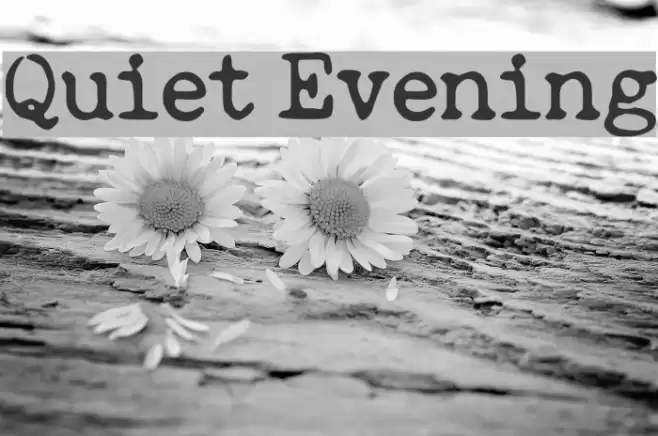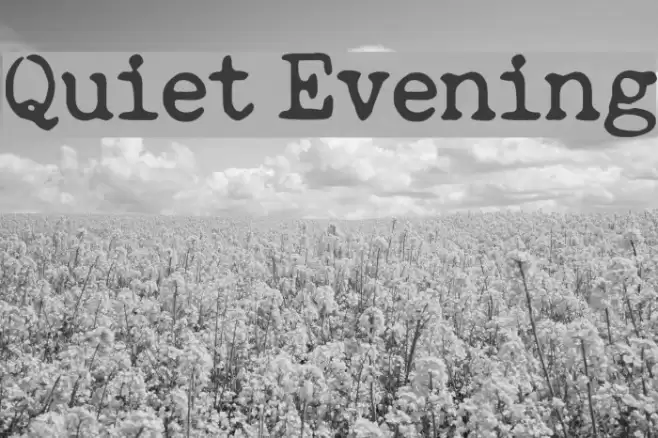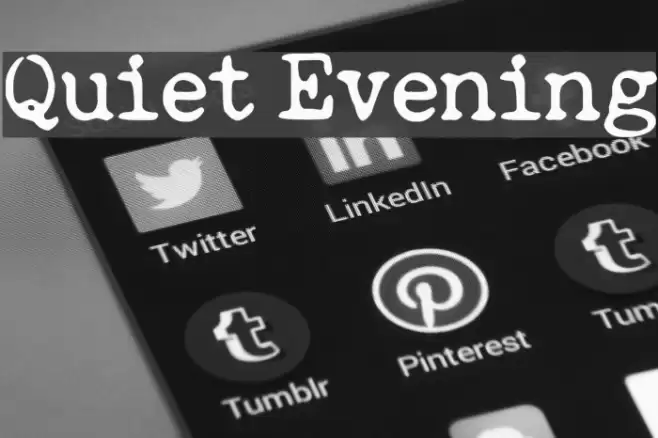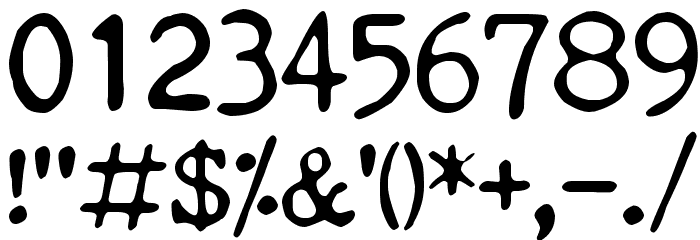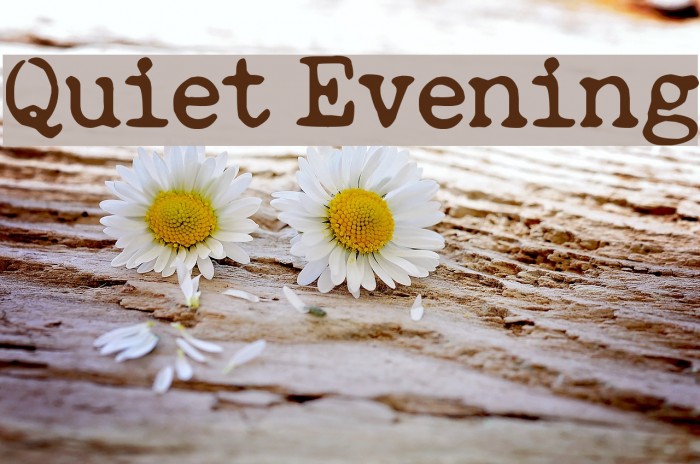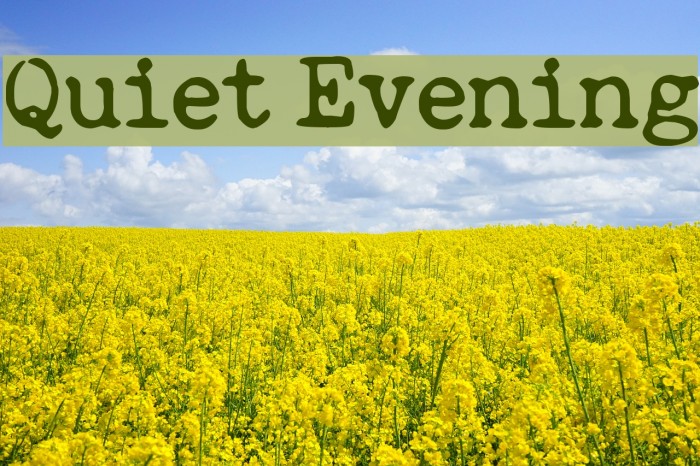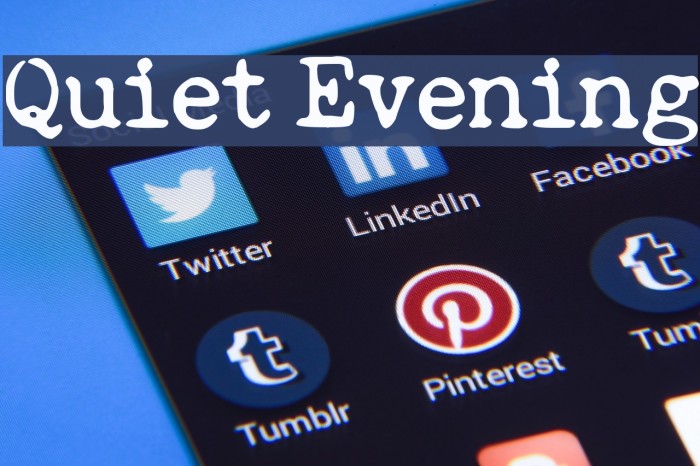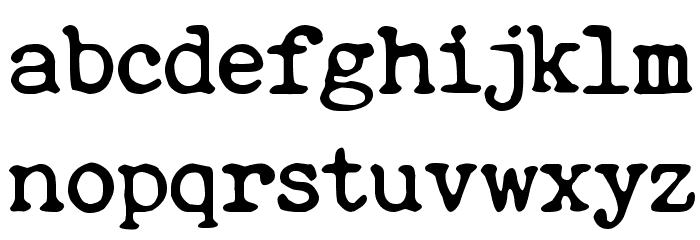
Quiet Evening Font
Quiet Evening Description
This font features a playful and bold design with a slightly irregular and hand-drawn appearance. The characters have a whimsical quality, with rounded edges and varying stroke widths that add a sense of movement and energy. The uppercase letters are robust and slightly condensed, while the lowercase letters maintain a consistent flow with a touch of quirkiness. Numbers and special characters follow the same lively style, making the font suitable for creative and informal projects. The overall look is both approachable and distinctive, perfect for capturing attention.
A playful, bold font with a hand-drawn, whimsical style from Uncategorized fonts.
- Proposed Projects: Ideal for children's books, playful branding, posters, and creative invitations.
- Overall Style: Playful, Whimsical